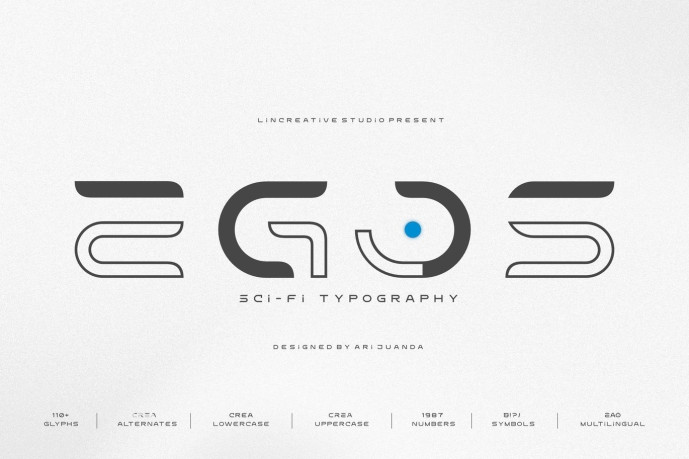
EGOS – Futuristic Sci-Fi Display Font
EGOS – Futuristic Sci-Fi Display Font EGOS is a futuristic display font inspired by advanced technology, cyberpunk aesthetics, and sleek sci-fi interfaces. Designed with clean geometric forms and precision-cut details, every character delivers a modern, high-tech appearance while maintaining excellent readability.
Its carefully crafted Stylistic Alternates let you explore multiple character combinations, making every headline feel unique, dynamic, and professionally crafted. From neon-lit cyber cities to cutting-edge digital concepts, EGOS is made for creators who want to design the future.